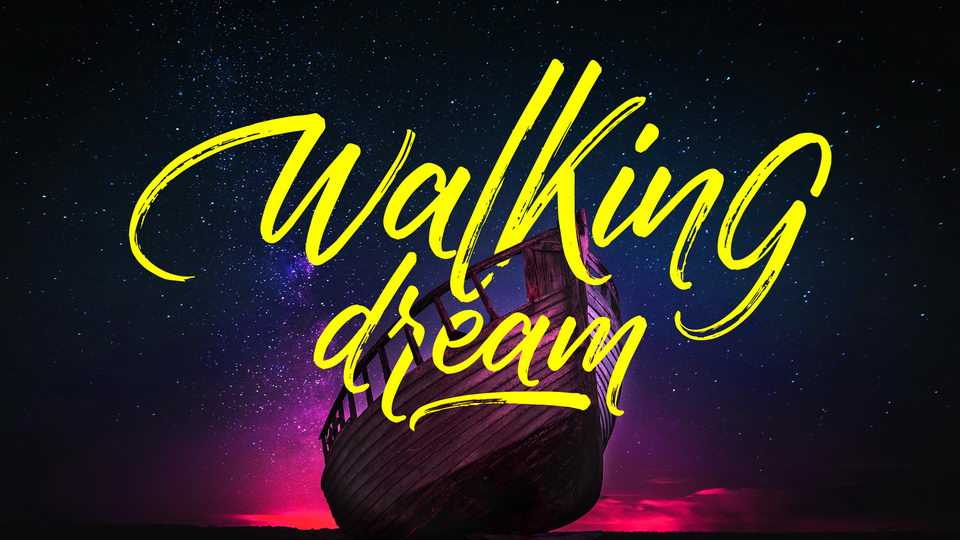
Walking Dream Script Font › Fontesk – Download Grátis
Download Walking Dream font, a bold and classy hand painted dry brush typeface with a dynamic vibe. Walking Dream will turn any design idea into a true standout.